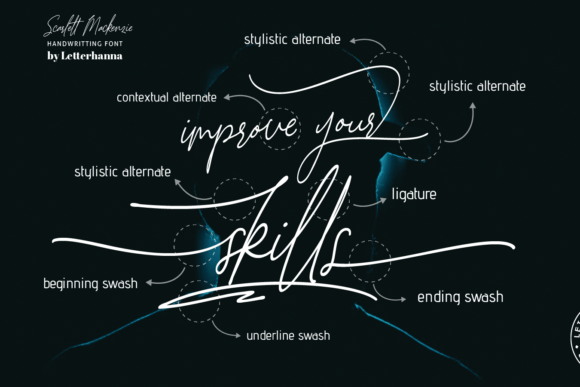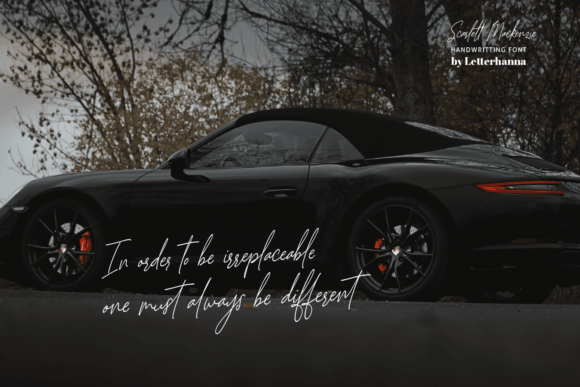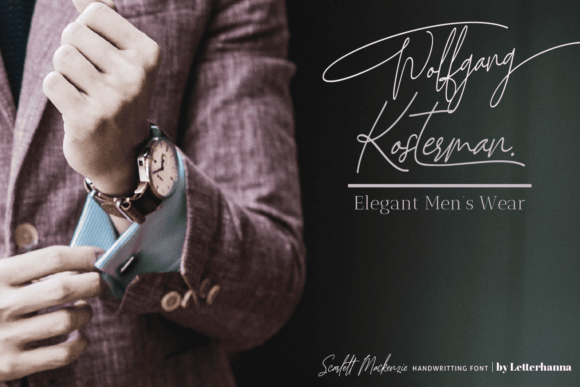
Introduction to Scarlett Mackenzie Font
Have you ever sat at your desk, struggling to find the perfect words to bring your creative project to life? Maybe it was a late-night brainstorming session, or a last-minute deadline, but the spark of inspiration hit you and all you could think of was the perfect handwritten font to make your design stand out. For many designers, this is the moment when the magic happens – and it’s exactly what led to the creation of the stunning Scarlett Mackenzie Font.
Developed to mimic the natural flow of handwritten script, Scarlett Mackenzie Font is a sophisticated signature-style handwriting script that’s sure to elevate your design projects to the next level. With an uppercase swash alternative for each letter and 7 sets of alternates for each lowercase letter, this versatile font offers endless possibilities for creative expression.
As a valuable resource for designers, the Scarlett Mackenzie Font is available for free download, making it an ideal choice for those looking to add a touch of high-quality, handcrafted elegance to their designs – whether it’s a logo, poster, or social media graphic. With a transparent background, this font can be easily layered over other design elements, giving you complete creative control over your project’s look and feel.
Key Features of Scarlett Mackenzie Font
• High-quality design resource ideal for creative projects
• Transparent background, making it perfect for use on images with complex backgrounds
• Scalable up to 72pt, suitable for various applications, from titles to body text
• Designed with precision, ensuring crisp and clear readability at resolutions up to 300 DPI
• Unique, elegant style, making it a standout choice for creative projects requiring sophistication
Honest Review: Scarlett Mackenzie Font
As a designer, I’m always on the lookout for high-quality design resources to elevate my creative projects. Recently, I stumbled upon the Scarlett Mackenzie Font, and I must say, it’s been a game-changer.
• ✨ Unique and elegant design aesthetic, perfect for feminine or vintage-inspired projects.
• ✨ Transparent background option allows for seamless integration with any design element.
However, I do have a few minor complaints:
• ⚠️ Limited character set, which may be a concern for designers who require a wide range of characters.
• ⚠️ Not suitable for large-scale or complex typography projects.
Overall, the Scarlett Mackenzie Font is a fantastic addition to any designer’s toolkit. Its unique design and high-quality files make it an excellent choice for creative projects, from invitations to branding materials. While it may have some limitations, the benefits far outweigh the drawbacks. I highly recommend giving it a try!
Tips for Getting the Most Out of Scarlett Mackenzie Font
Use the Scarlett Mackenzie Font with a transparent background to create a clean and minimalist design. Experiment with different font sizes and colors to add visual interest to your project.
The Scarlett Mackenzie Font is perfect for creating invitations, greeting cards, and other social media graphics. It’s also a great choice for designers looking to add a touch of elegance to their branding and marketing materials.